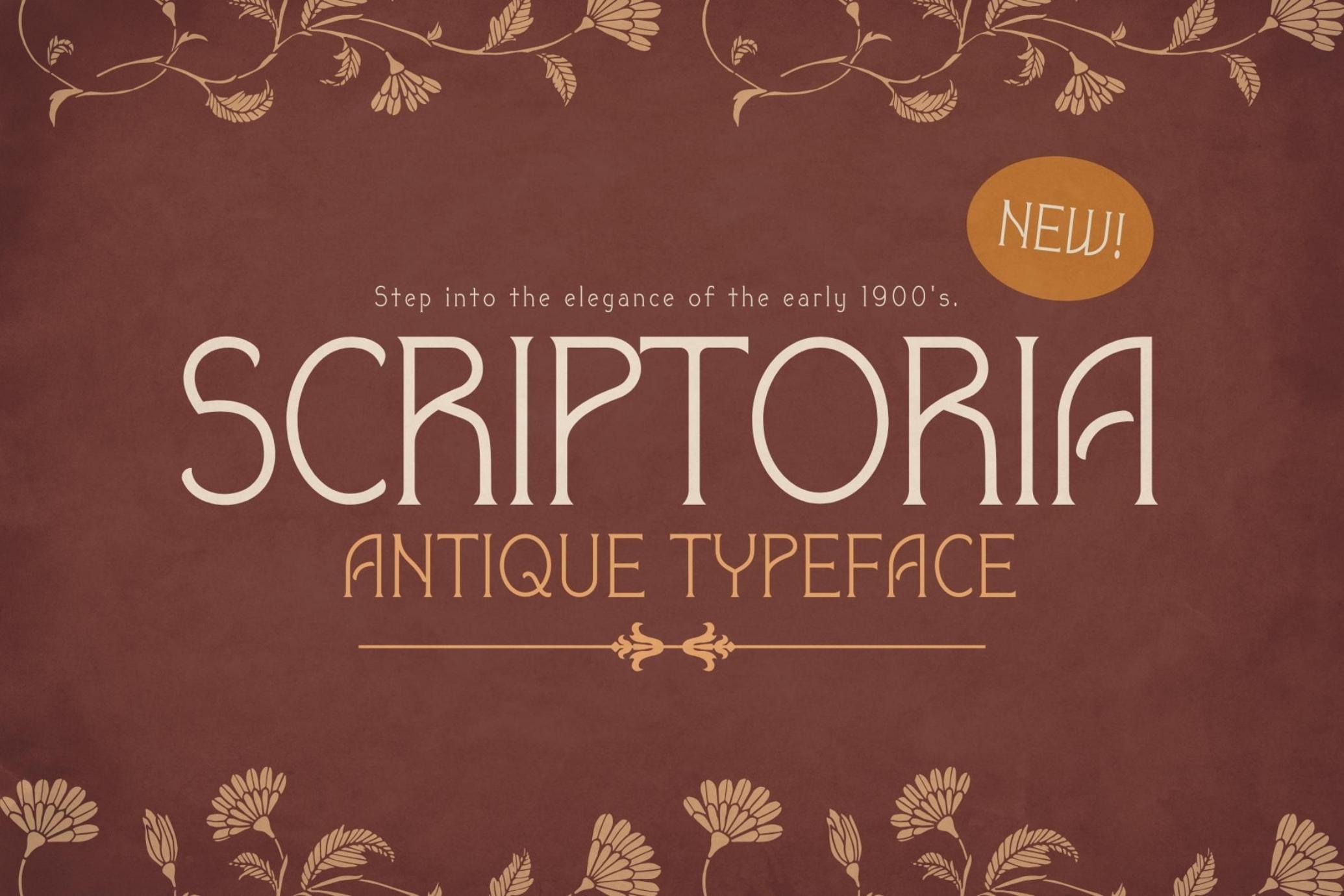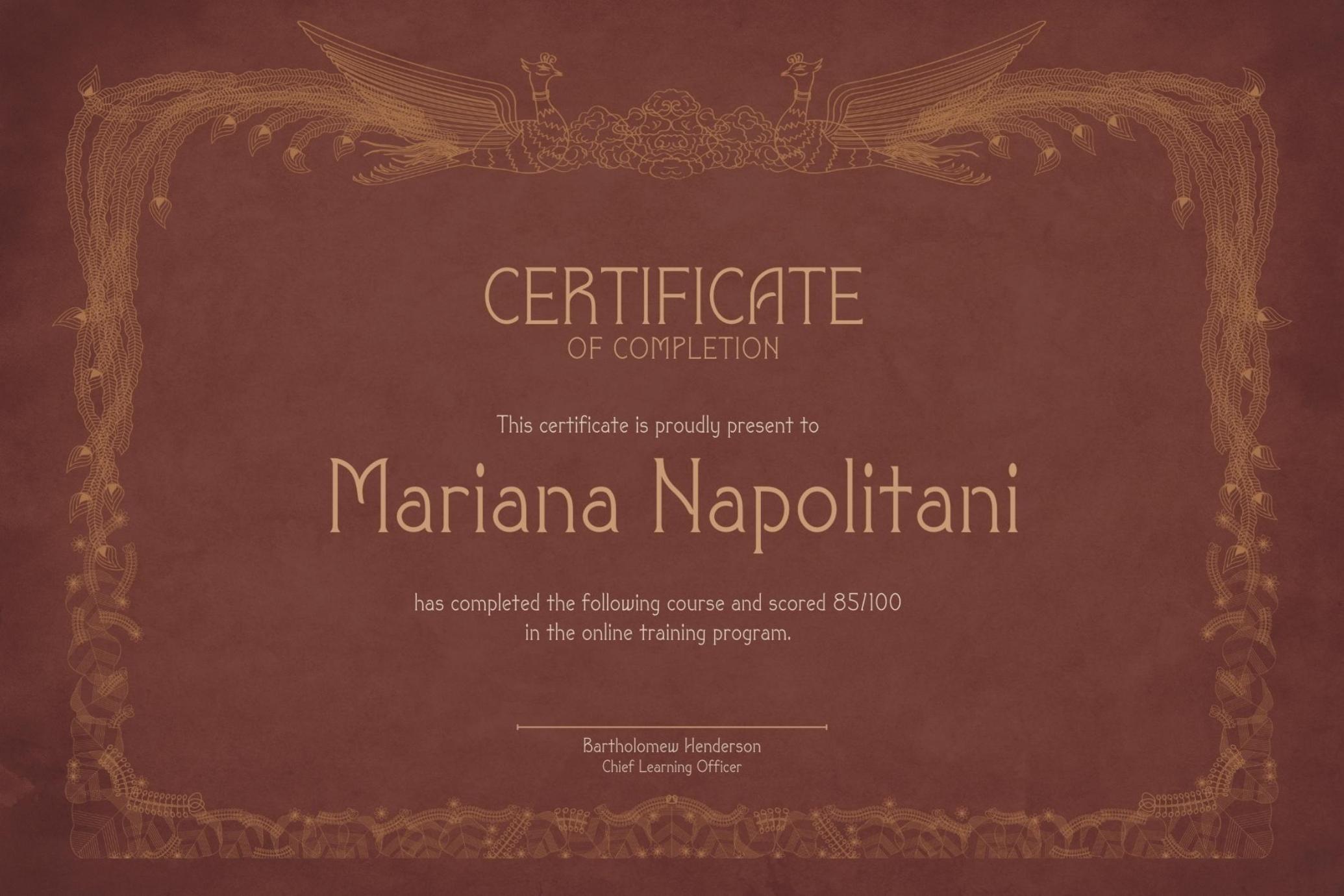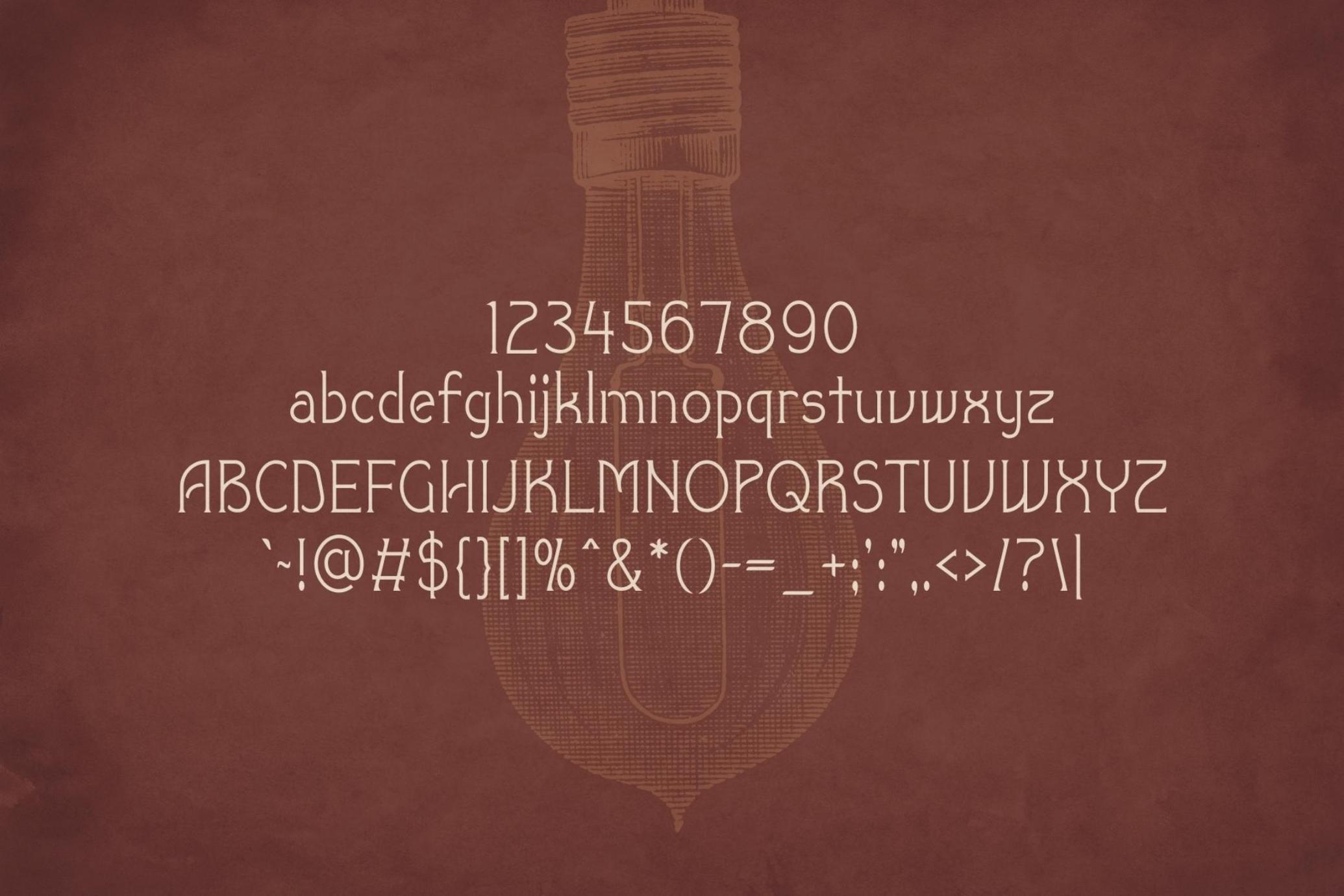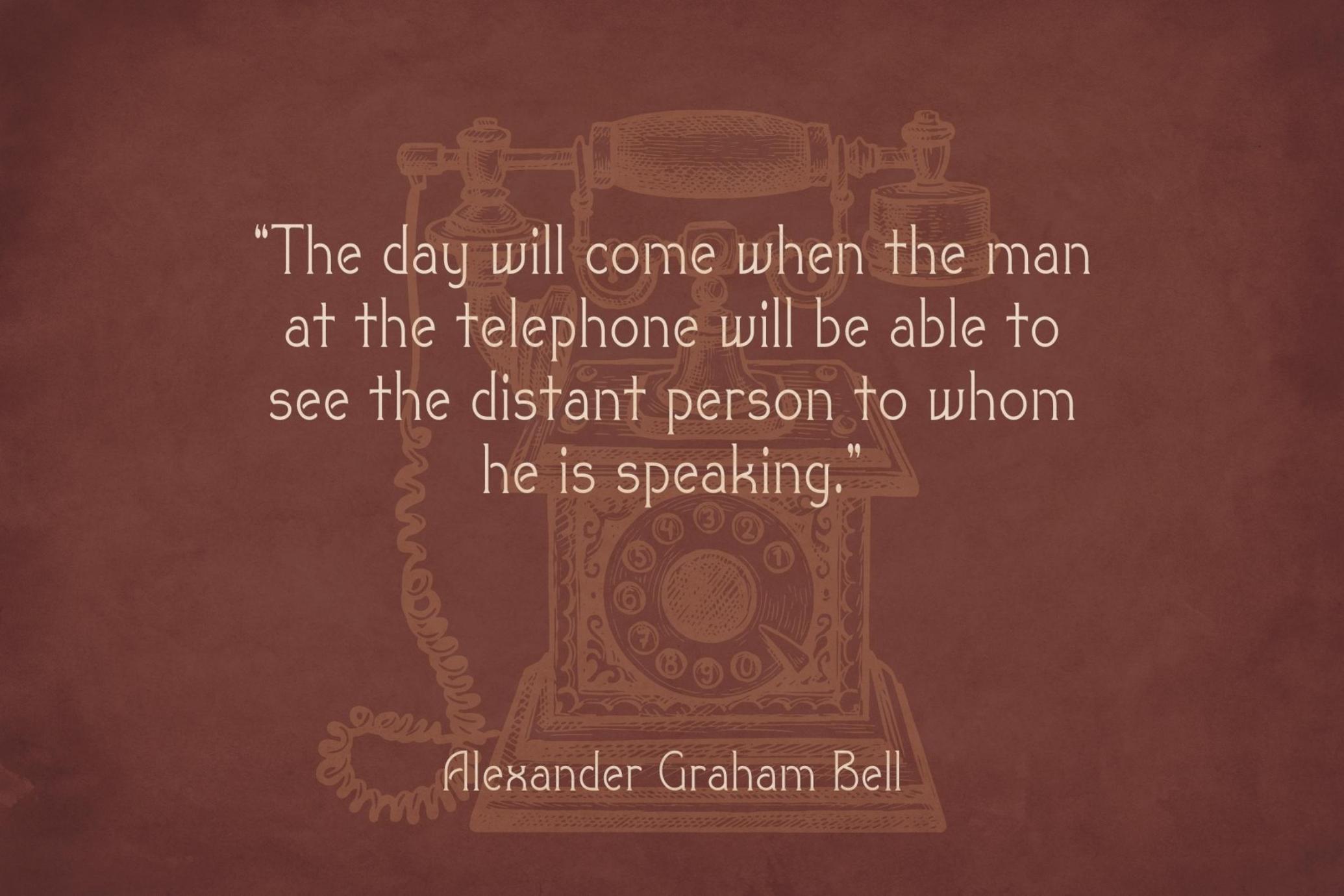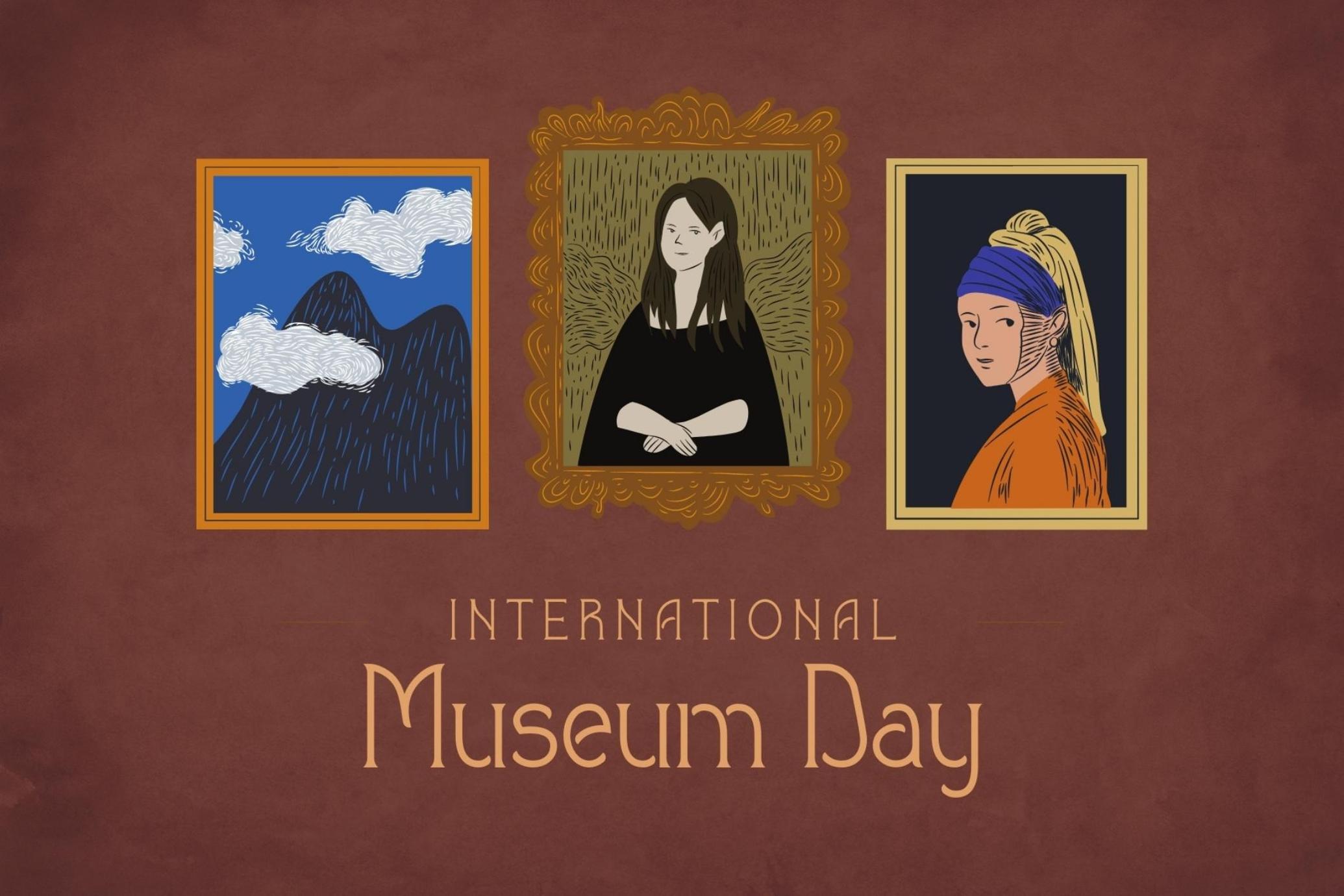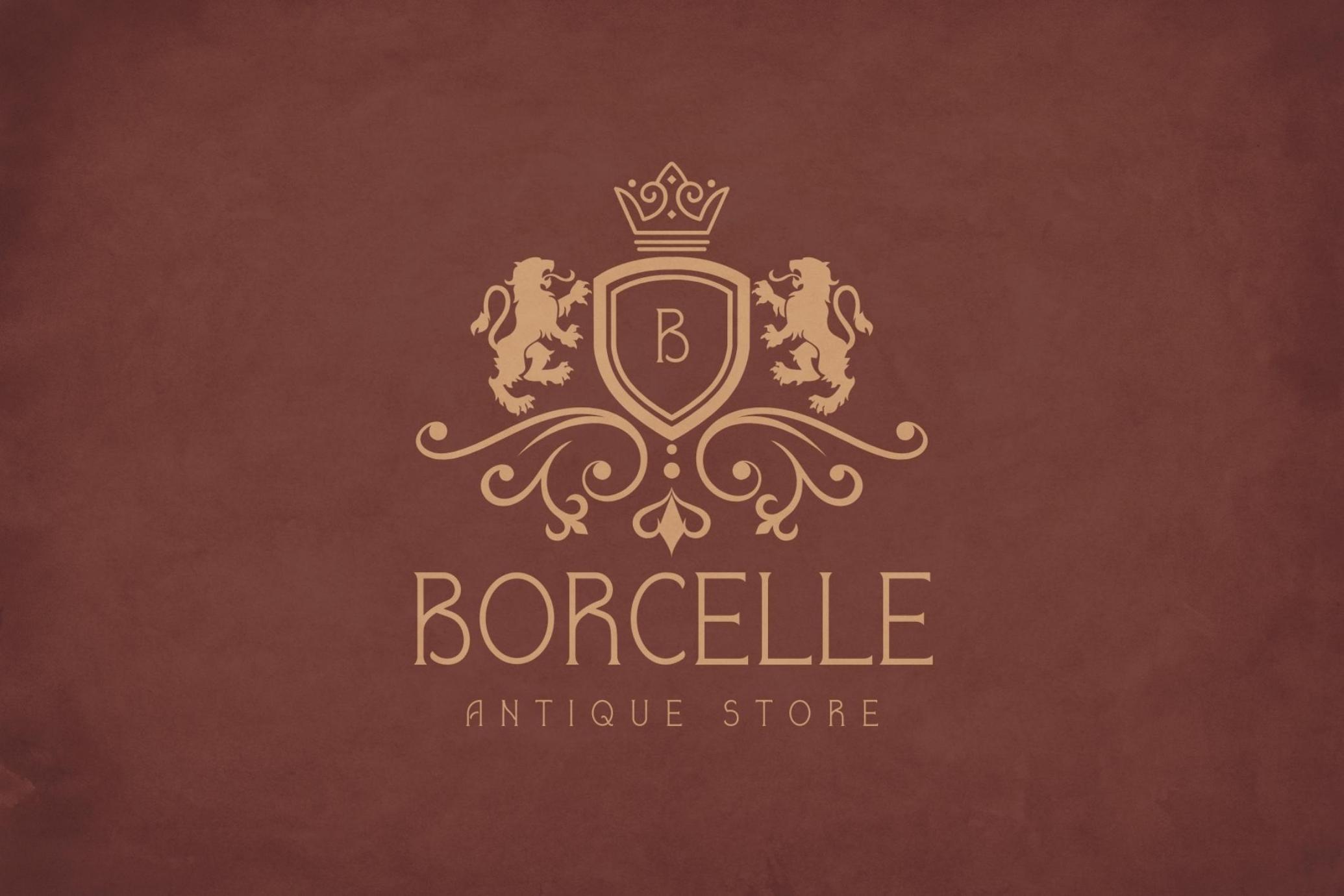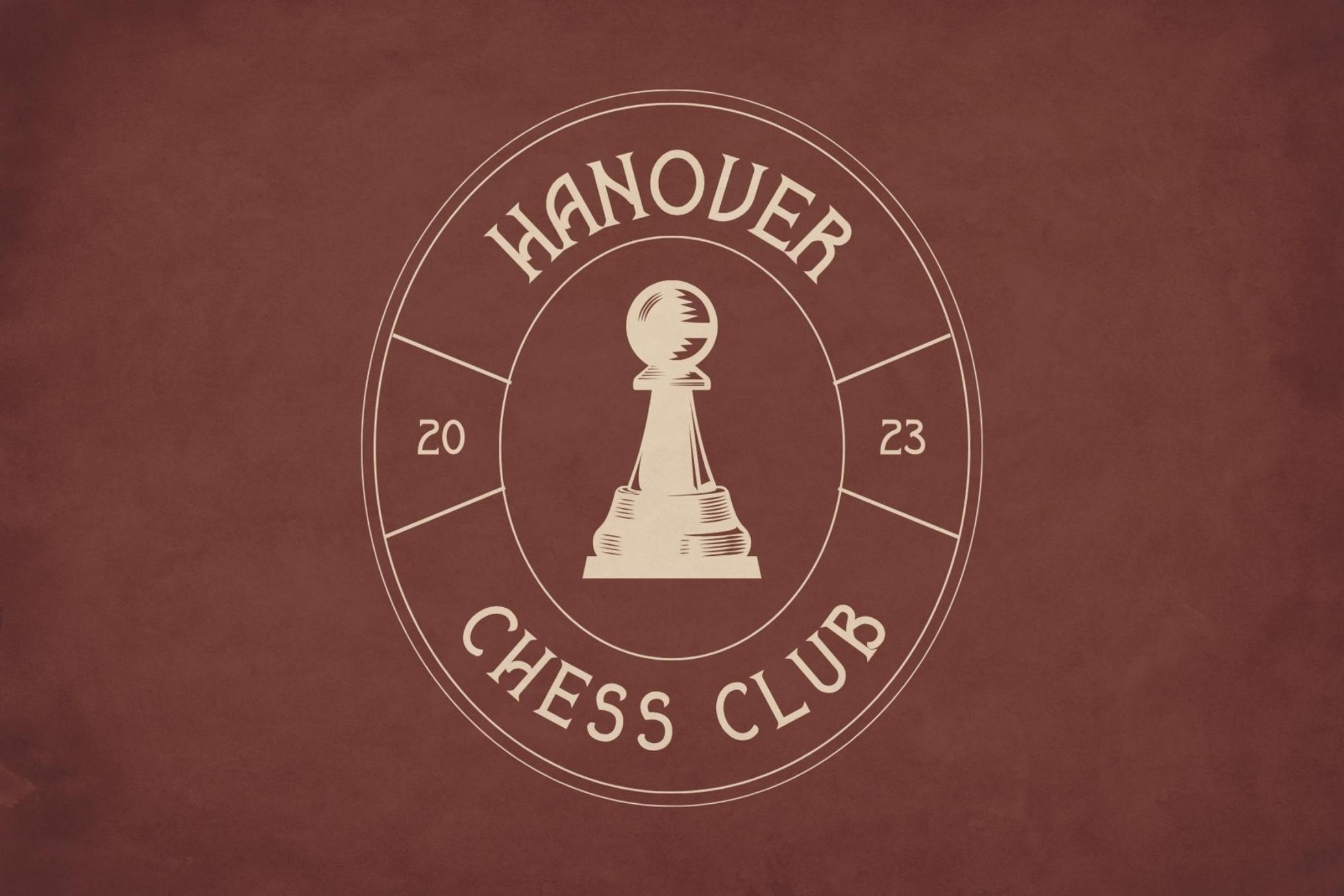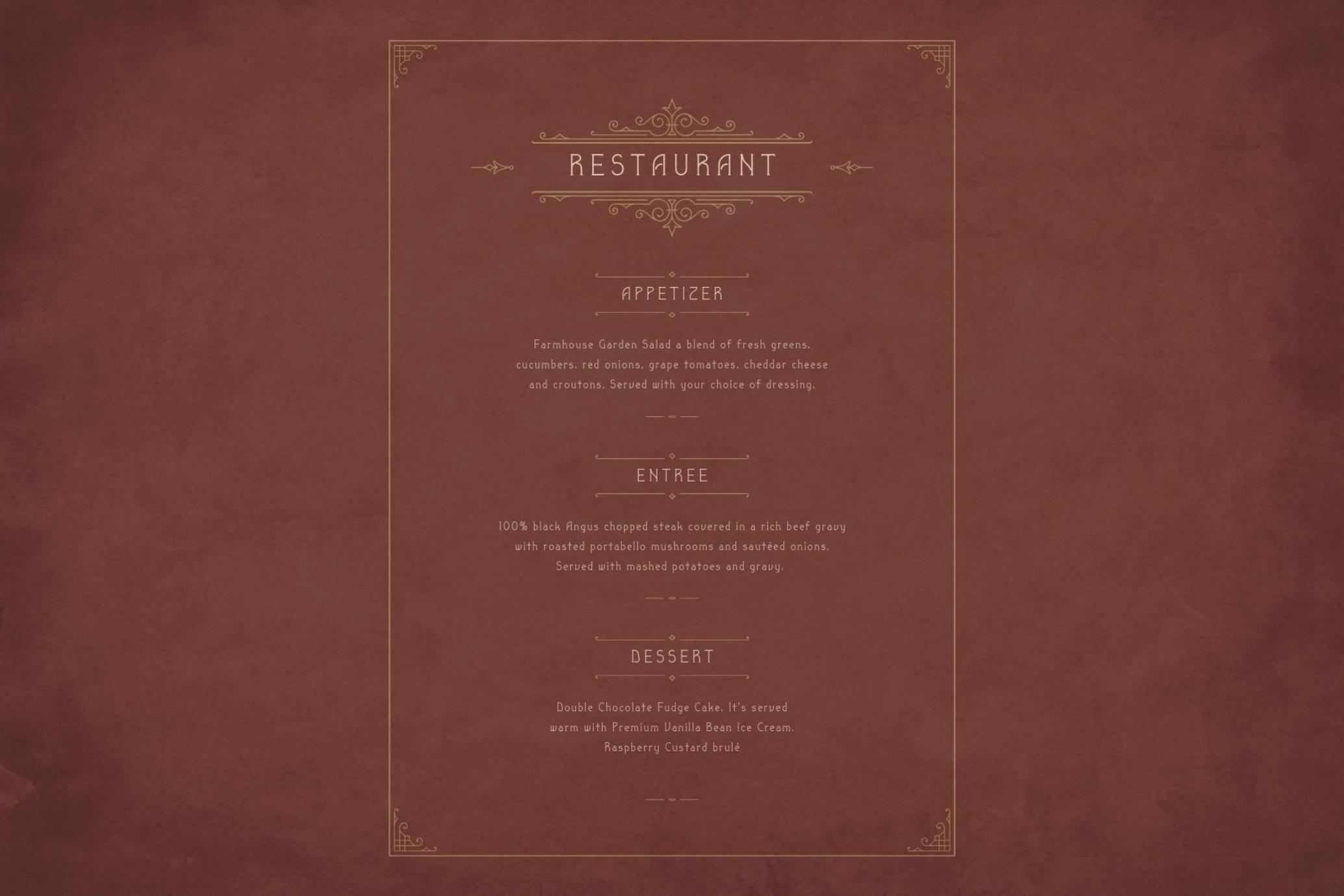
Scriptoria - Antique Typeface
Step into the elegance of the early 1900s with Scriptoria, a refined antique typeface that captures the essence of vintage craftsmanship. Designed for legibility and sophistication, this font blends delicate curves with classic letterforms, making it perfect for historical projects, elegant branding, book covers, and invitations.
Whether you're evoking the charm of turn-of-the-century typography or seeking a typeface with timeless appeal, Scriptoria delivers authenticity and grace in every character.